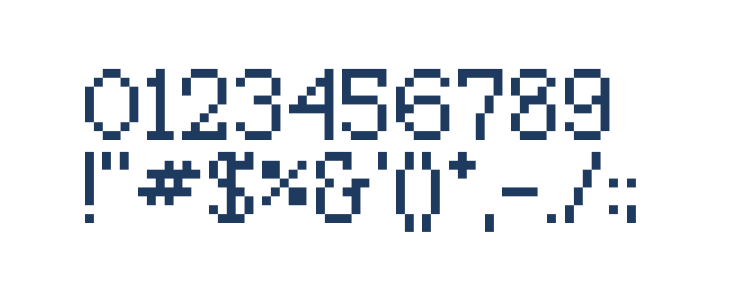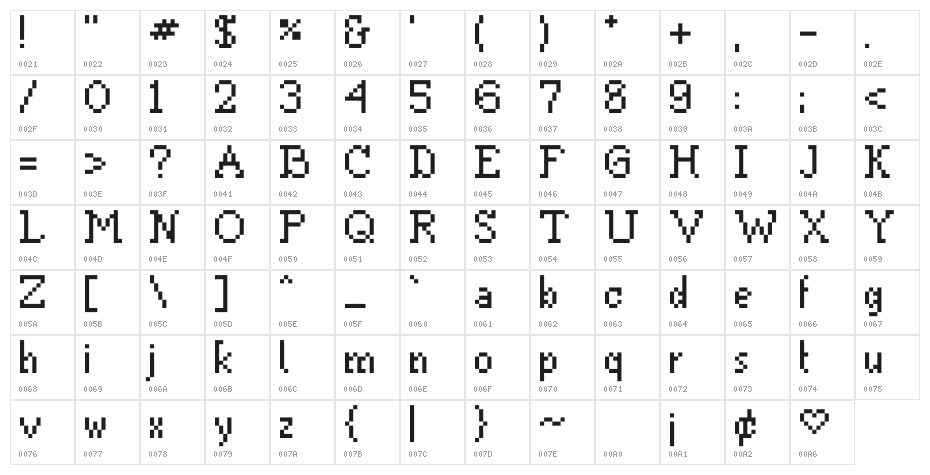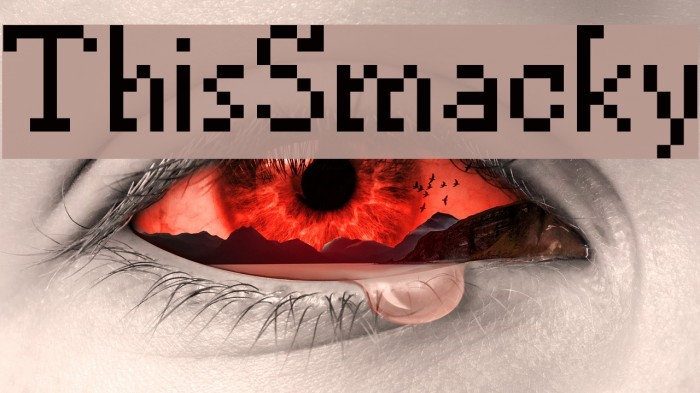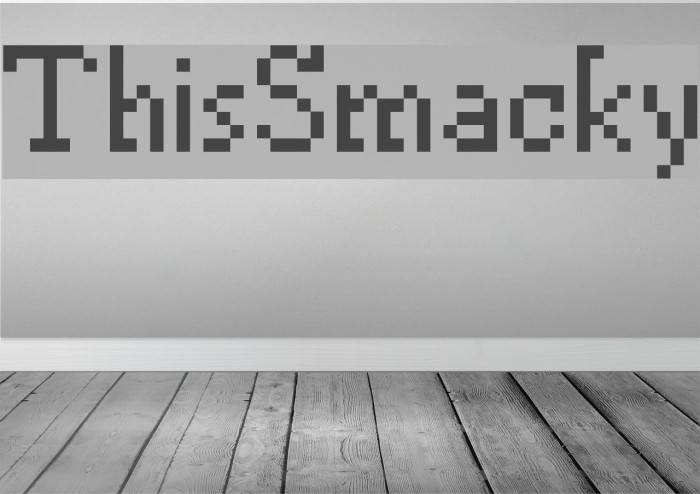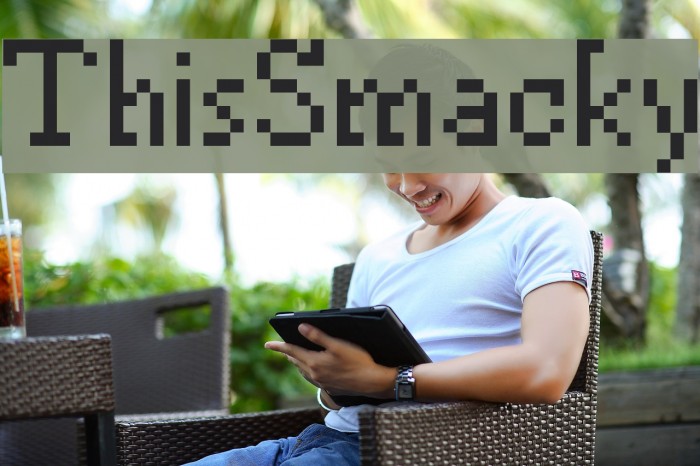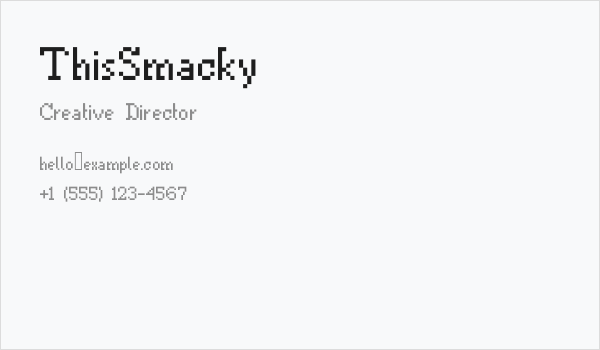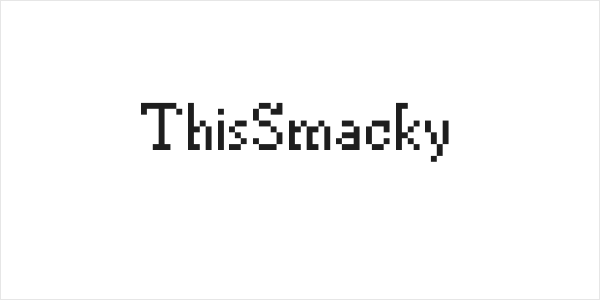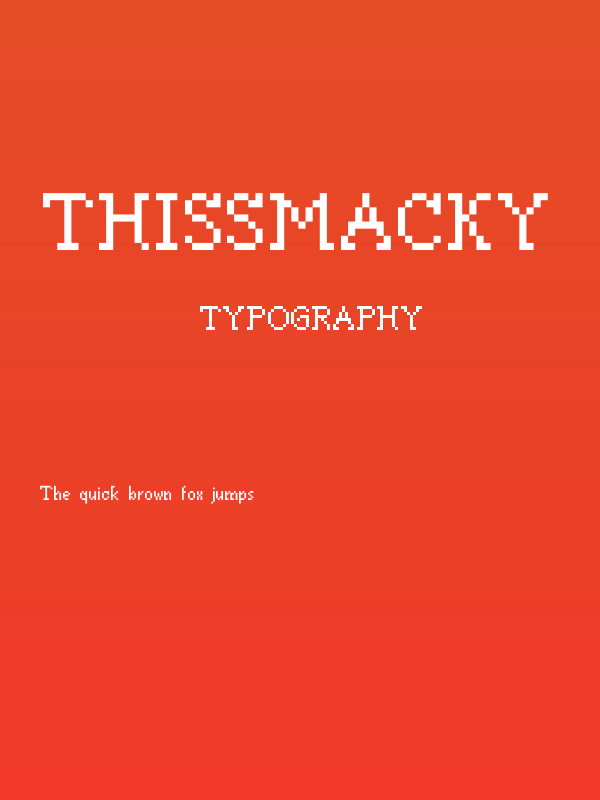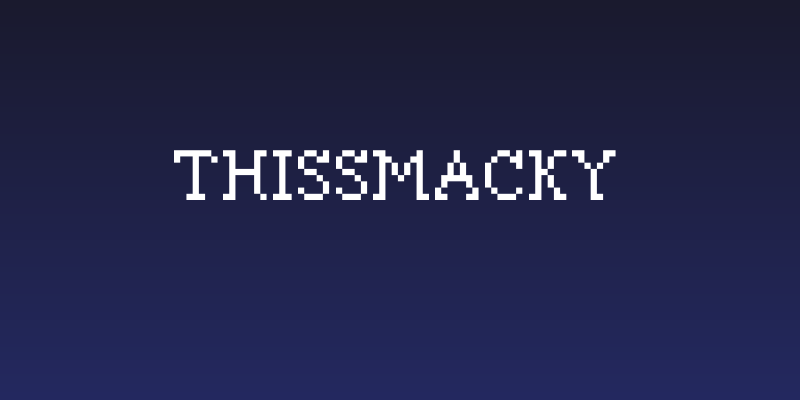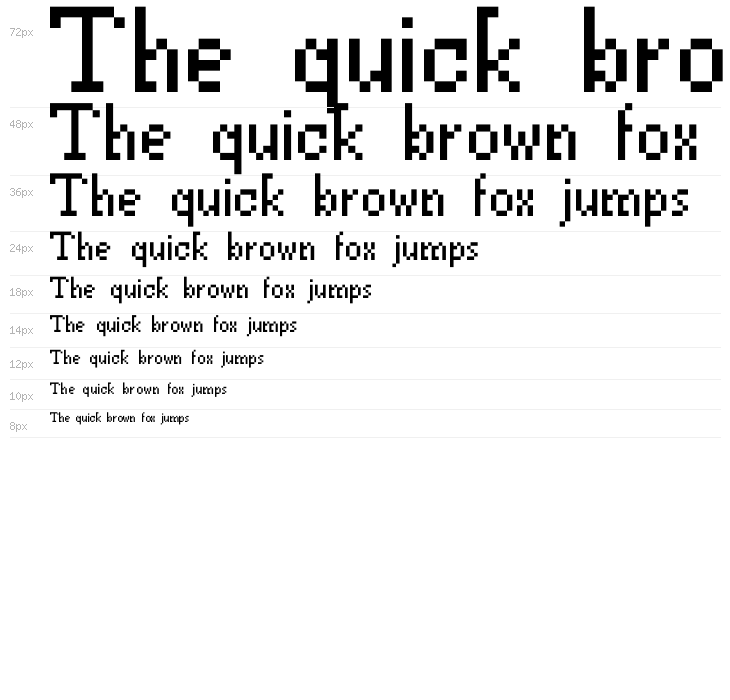
ThisSmacky Font
ThisSmacky Description
This font features a pixelated, blocky design reminiscent of early digital displays and retro video games. Each character is composed of distinct square pixels, creating a uniform and grid-like appearance. The uppercase and lowercase letters maintain a consistent height, contributing to a monospaced feel. The numbers and special characters follow the same pixelated style, ensuring cohesion across all elements. This font's nostalgic aesthetic is perfect for projects aiming to evoke a sense of vintage digital technology or retro gaming culture.
| Use Case | Logos, Headlines, Digital Art |
| Proposed Projects | Ideal for retro video game designs, digital art projects, and nostalgic tech-themed branding. |